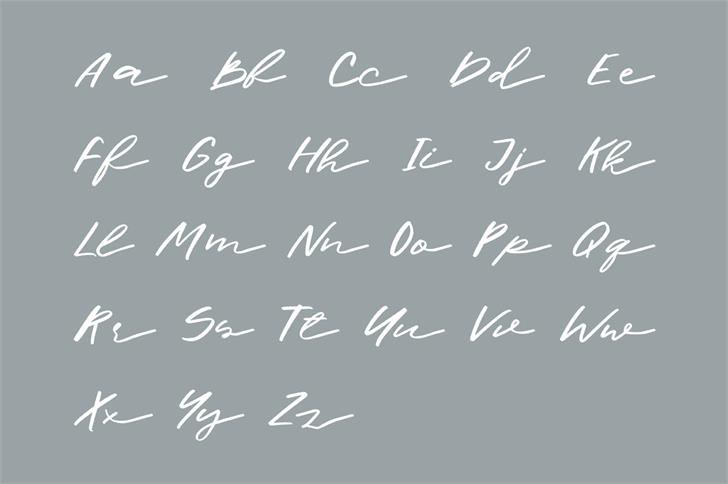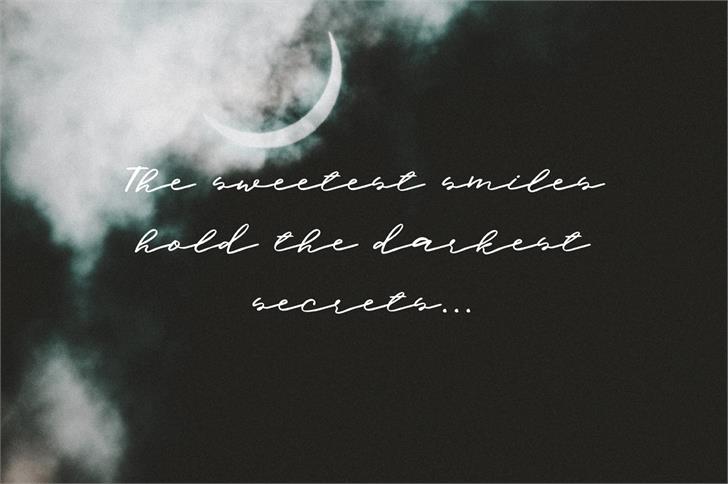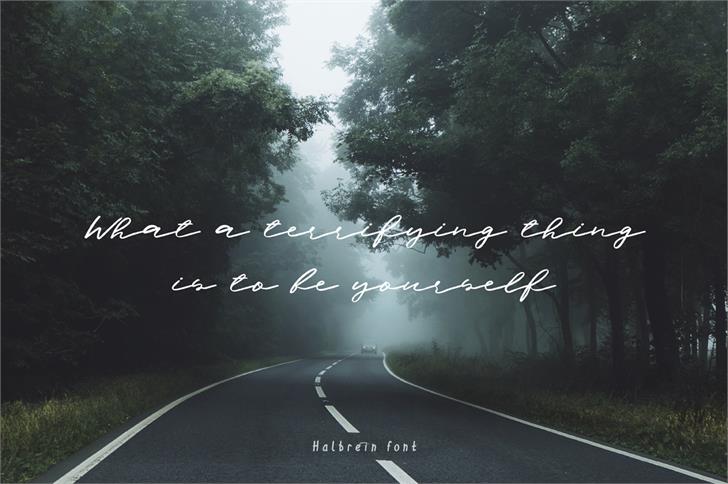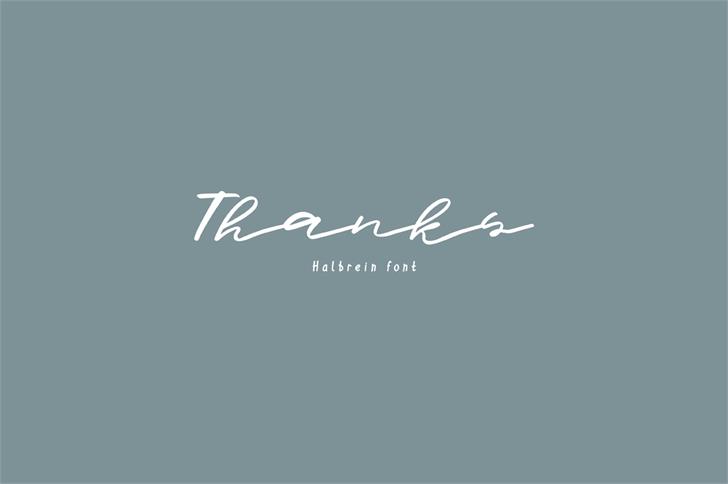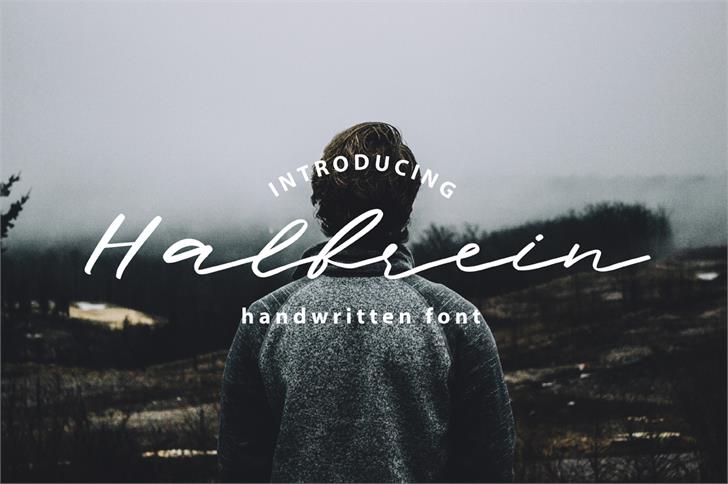
Halbrein Script
Halbrein Script Font
Meet my new font Halbrein – a romantic delicate script font with its poetic flow, wich simulates natural handwriting. Full version of Halbrein comes with uppercase, lowercase, standard punctuation and special letters for most of the European languages.